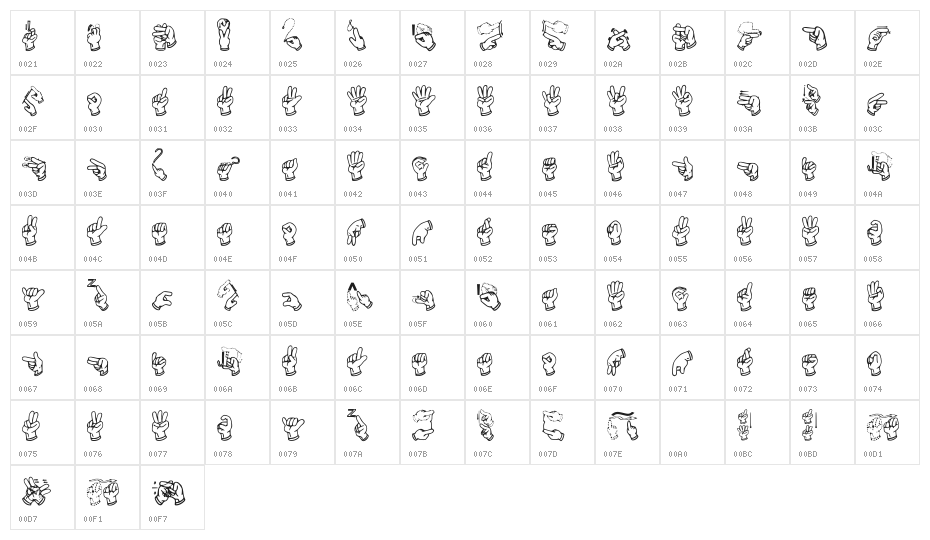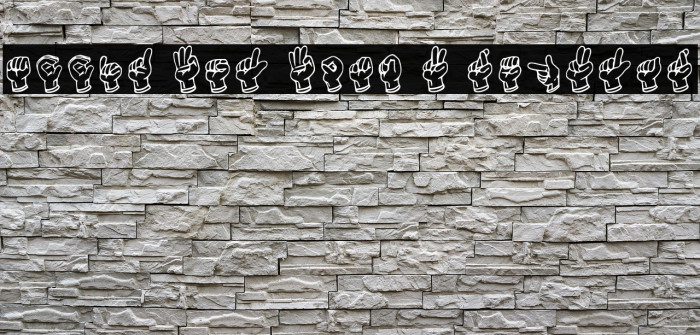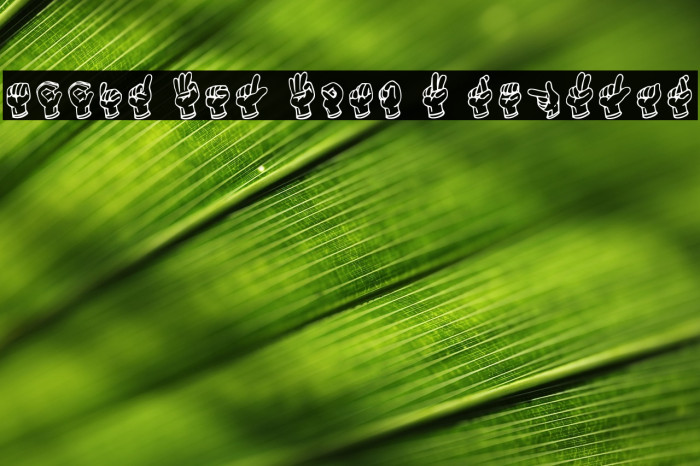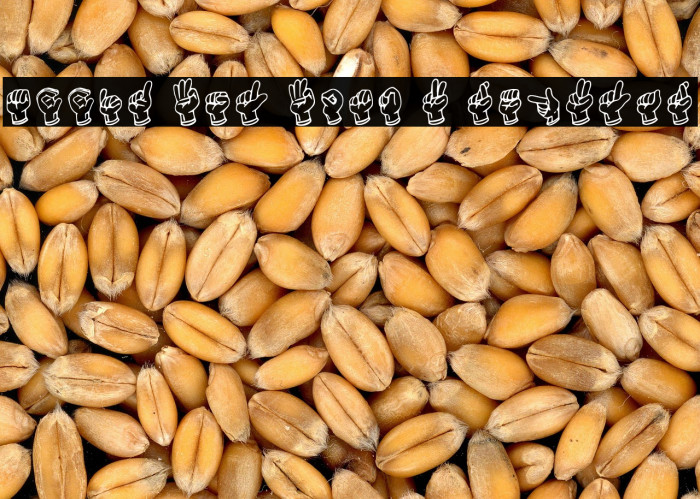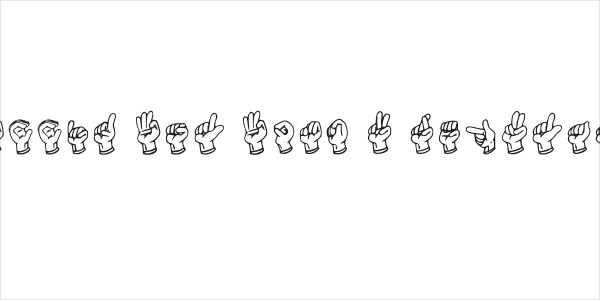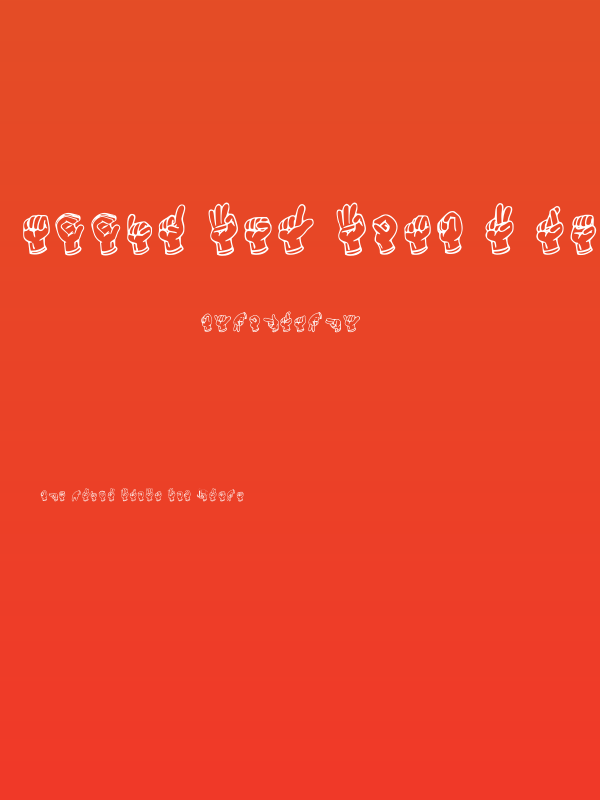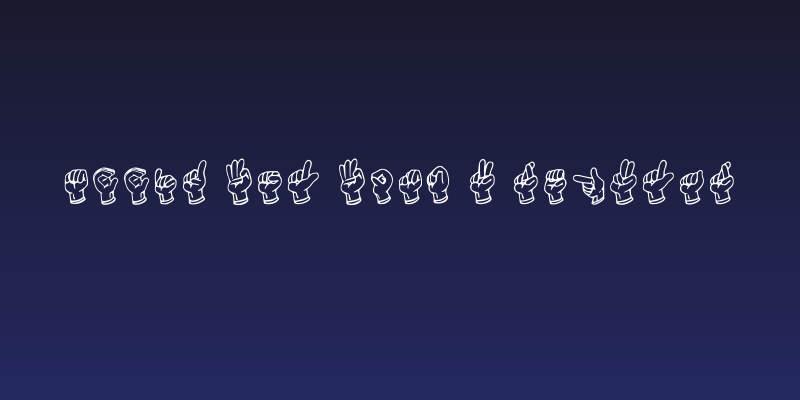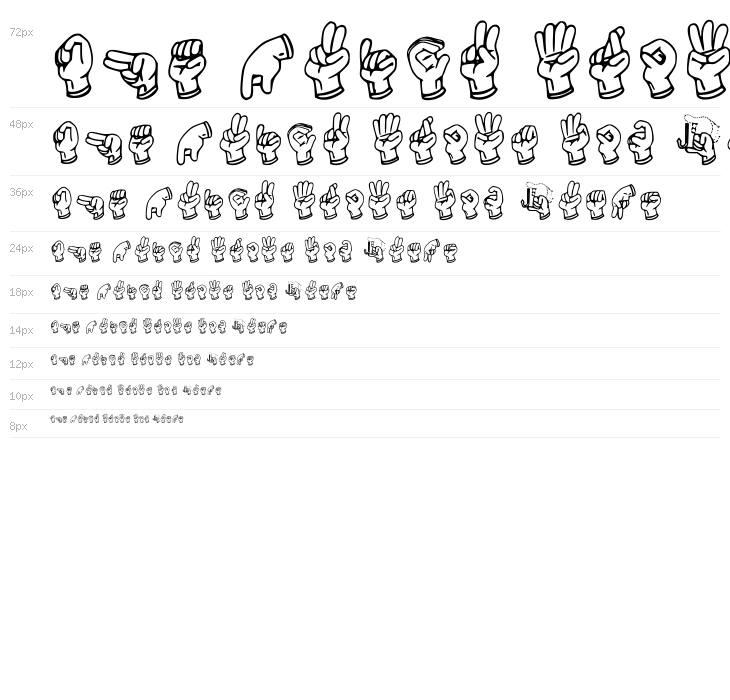
Mccid Fsl Font 2 Regular Font
Mccid Fsl Font 2 Regular Description
This font is a unique representation of the American Sign Language (ASL) alphabet, depicted through hand gestures. Each character is illustrated with a cartoon-style hand, providing a playful and educational approach to learning ASL. The bold outlines and simplified hand shapes make each letter easily recognizable, while maintaining a consistent style throughout. The font covers both uppercase and lowercase letters, as well as numbers and a selection of special characters. This creative design is ideal for educational materials, especially those aimed at teaching sign language to children. Its distinctive style also makes it suitable for use in decorative projects where a playful and inclusive theme is desired.
| Overall Style | Playful, Educational |
| Use Case | Educational materials, Decorative projects |
| Proposed Projects | Educational materials, children's books, inclusive design projects, decorative signage. |